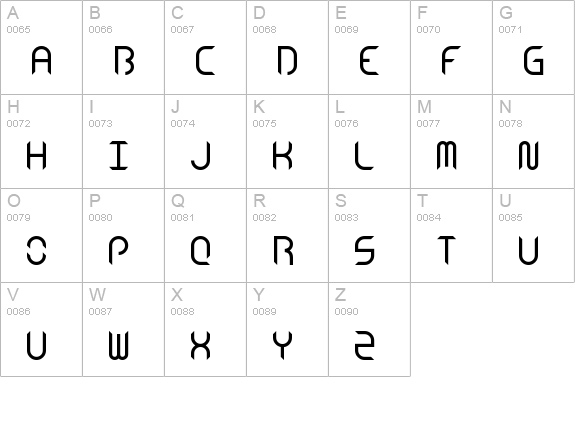
Android Insomnia Regular Font Details
Android Insomnia Regular is the standard, neutral variant in the Android typeface family \xE2\x80\x94 well suited to general body text, paragraphs, and standard typographic work.
Android Insomnia Regular is a stunning font that effortlessly combines modernity with a touch of elegance. Its sleek and refined letterforms make it the perfect choice for a wide range of design projects, from websites to logos and everything in between. This font is characterized by its clean lines and balanced proportions, giving it a contemporary and professional look. The precise spacing between each letter ensures legibility at any size, making it ideal for both print and digital designs. Android Insomnia Regular is not only visually appealing, but it also offers great versatility. Whether you're looking to create a bold headline or a subtle body text, this font has you covered. Its versatility allows it to seamlessly adapt to any design concept or style. One of the best things about Android Insomnia Regular is that it is completely free. Yes, you heard it right - this amazing font is freely available to download at FontsMarket.com. This means that you can add this font to your collection without spending a dime. So why wait? Take advantage of this fantastic opportunity and enhance your design projects with Android Insomnia Regular. Download it for free today at FontsMarket.com and experience the power of this remarkable font.